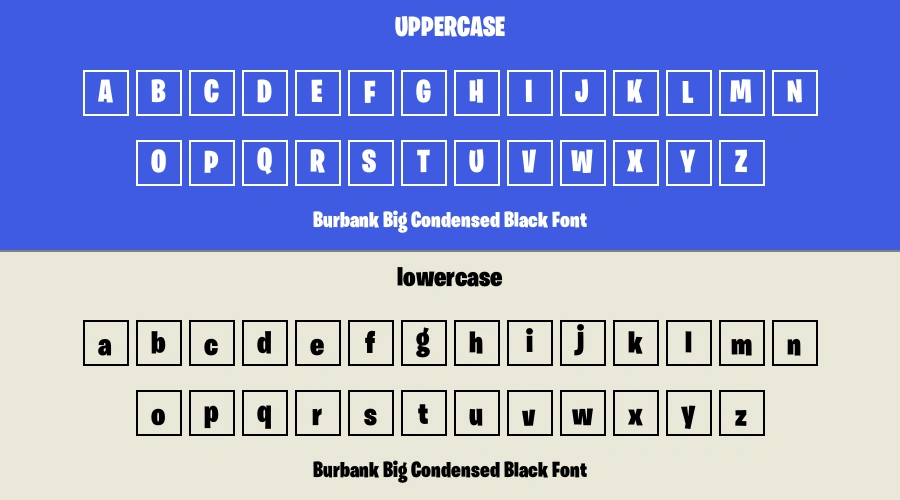
About Burbank Big Condensed Black Font
Burbank Big Condensed Black Font embodies typographic excellence through its masterful combination of perfect spacing and functionality. Created for poster titles, this typeface delivers exceptional clarity and creative potential across all applications. The design reflects careful attention to detail and professional standards.
Advanced capabilities include distinctive playful elements and versatile pi characters, giving designers creative control. When used in body text, Burbank Big Condensed Black Font exhibits remarkable scalability. The harmonious balance between cap height ratio and cultural context sets this typeface apart.